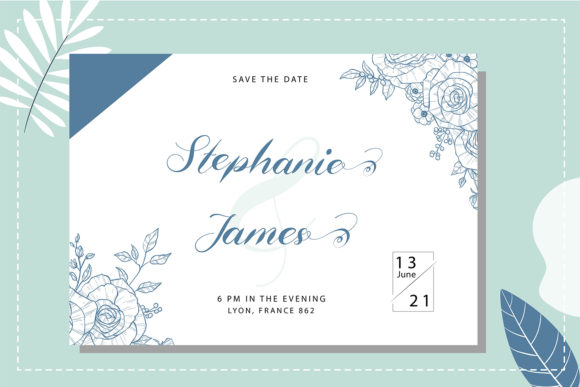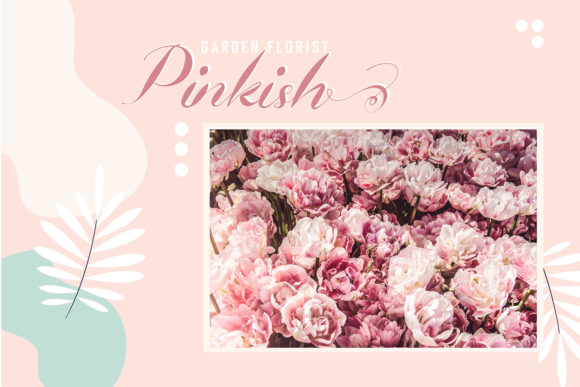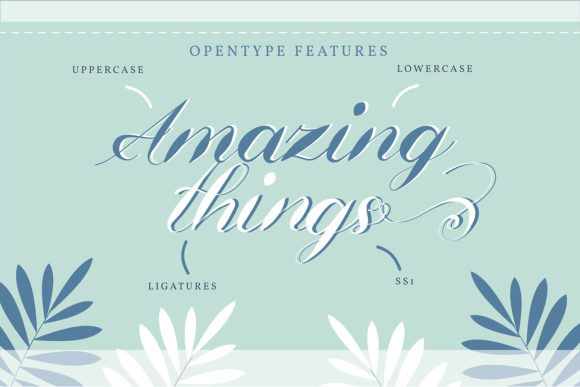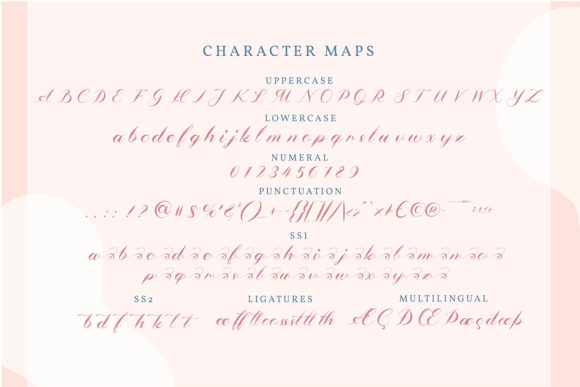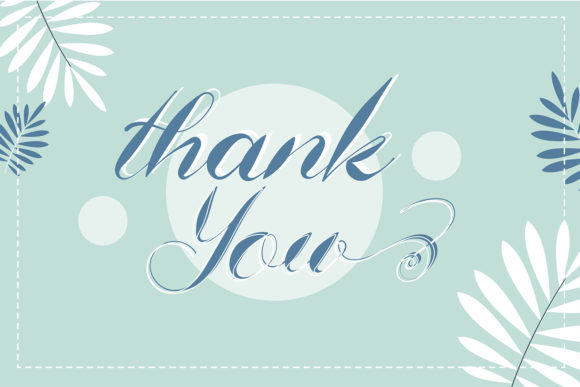
Introducing Changelina Font: Elevate Your Designs with Elegance and Flair
In the world of typography, few fonts manage to capture the essence of elegance and sophistication as effectively as Changelina Font. This beautiful, handwritten font has been making waves among designers and crafters alike, and for good reason. Changelina feels incredibly elegant and flowing, making it the perfect addition to a wide range of design projects, from wedding invitations and thank you cards to quotes, greeting cards, logos, and business cards.
A Perfect Blend of Style and Versatility
One of the standout features of Changelina Font is its versatility. Whether you’re looking to add a touch of whimsy to a design or create a more formal, sophisticated look, Changelina delivers. Its varying baseline, smooth lines, and gorgeous glyphs work together to create a font that is both visually striking and highly legible. This makes it an excellent choice for designers who need a font that can adapt to different styles and themes.
Key Features of Changelina Font
- Varying Baseline: The font’s varying baseline gives it a dynamic, organic feel that sets it apart from more traditional fonts.
- Smooth Lines: The smooth, flowing lines of Changelina Font make it perfect for designs that require a touch of elegance and sophistication.
- Gorgeous Glyphs: The font features a wide range of beautiful glyphs, allowing designers to add unique touches to their work.
- Stunning Alternates: With stunning alternates, designers have even more flexibility to create unique and eye-catching designs.
Why Designers and Crafters Love Changelina Font
So, why has Changelina Font become a favorite among designers and crafters? For one, its elegant and flowing design makes it perfect for a wide range of projects, from formal wedding invitations to more casual greeting cards. Additionally, the font’s versatility and range of features make it an excellent choice for designers who need a font that can adapt to different styles and themes.
Using Changelina Font in Your Designs
- Experiment with Different Sizes: Changelina Font looks great in a variety of sizes, from large headings to smaller body text.
- Play with Alternates: Take advantage of the font’s stunning alternates to add unique touches to your designs.
- Pair with Other Fonts: Changelina Font pairs well with a range of other fonts, making it easy to create visually striking combinations.
In conclusion, Changelina Font is a beautiful, elegant, and versatile font that is perfect for designers and crafters looking to add a touch of sophistication to their work. With its varying baseline, smooth lines, gorgeous glyphs, and stunning alternates, Changelina Font is sure to become a go-to choice for a wide range of design projects. Whether you’re working on a wedding invitation, a greeting card, or a logo, Changelina Font is an excellent choice.